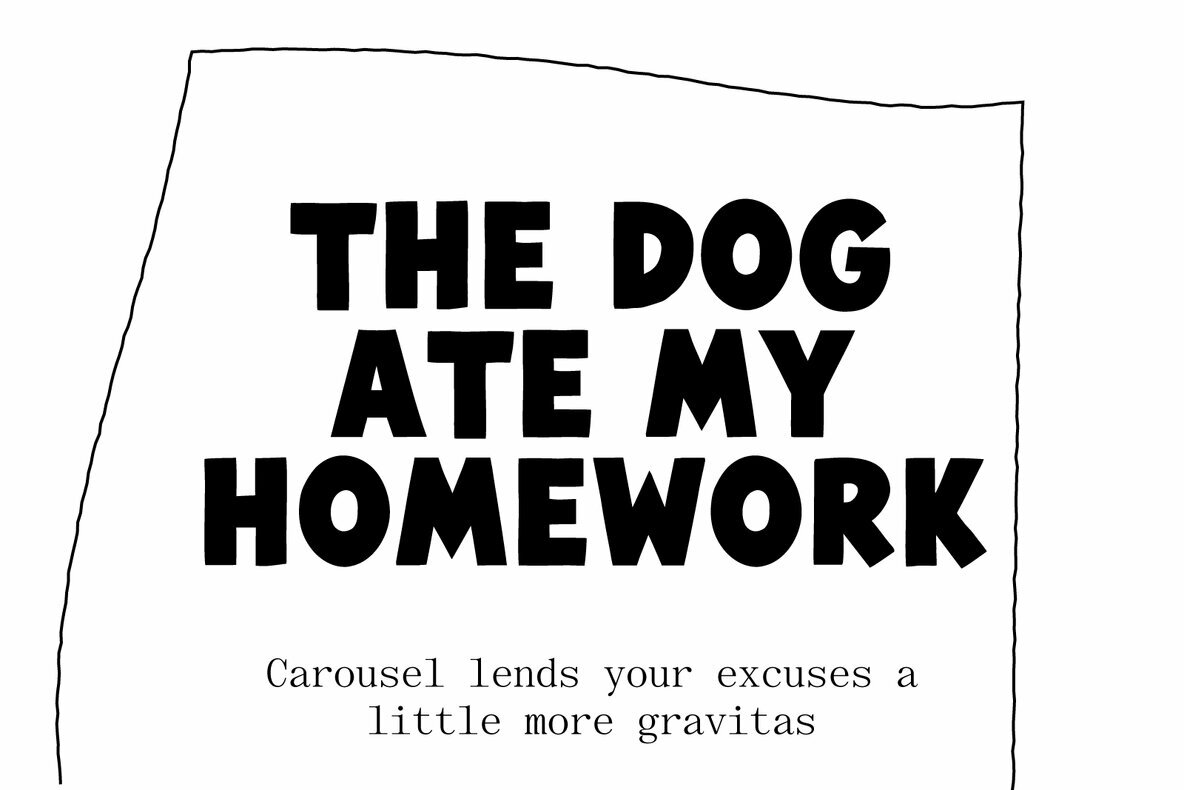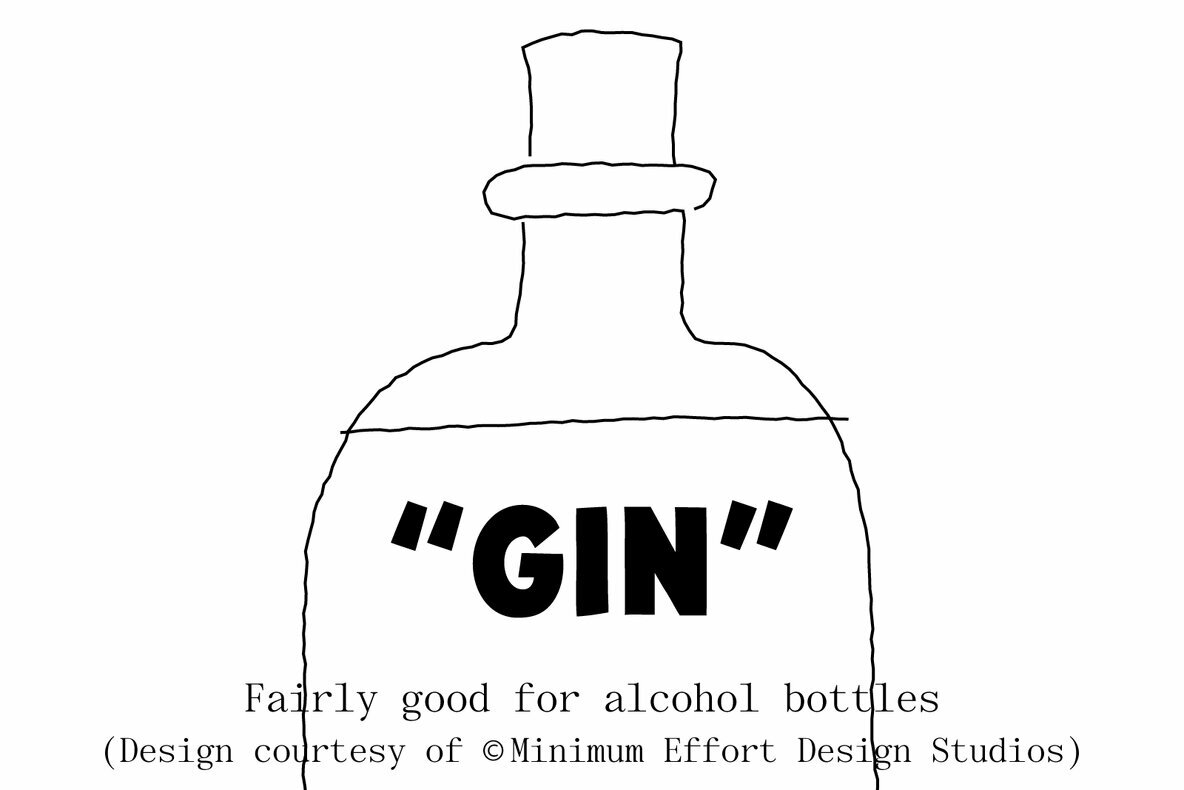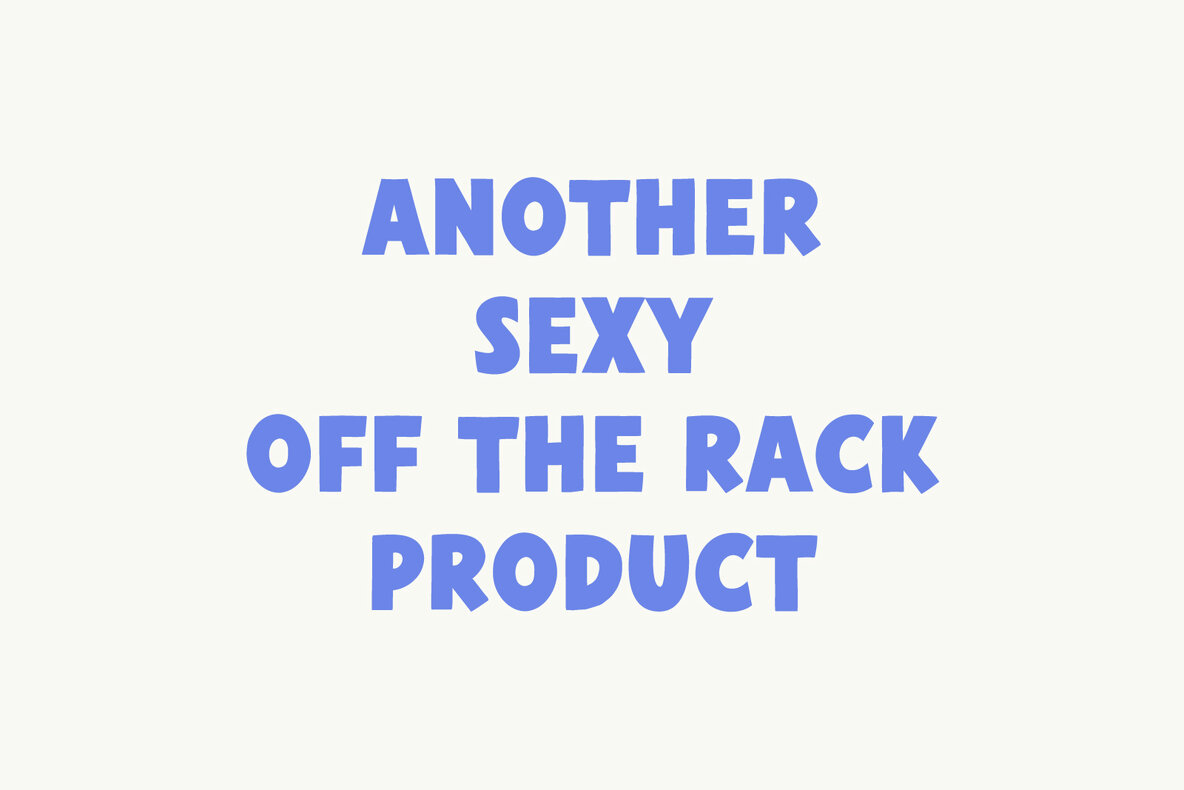
Carousel Font
OTR Carousel Cuddly
Carousel is a robust sans serif typeface inspired by the hand-painted signs of early 1900s shop windows. This bold and chunky font captures the essence of traditional signwriting techniques while offering a modern twist. With lowercase characters, digits, and extensive punctuation, Carousel delivers versatility for various design projects. Its comprehensive support extends to over 65 languages, making it suitable for international use, though it does humorously exclude Klingon and Pig Latin.
Ideal for posters, branding, headlines, and graphic design, Carousel's thick strokes and clean lines ensure legibility and impact. Its quirky yet professional appearance brings a unique charm to any creative work. Whether you're aiming for a vintage aesthetic or a contemporary edge, this typeface adds character and style effortlessly.